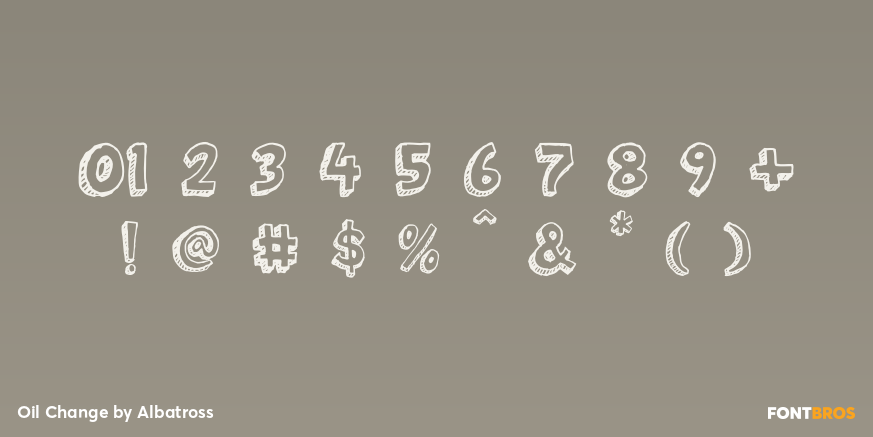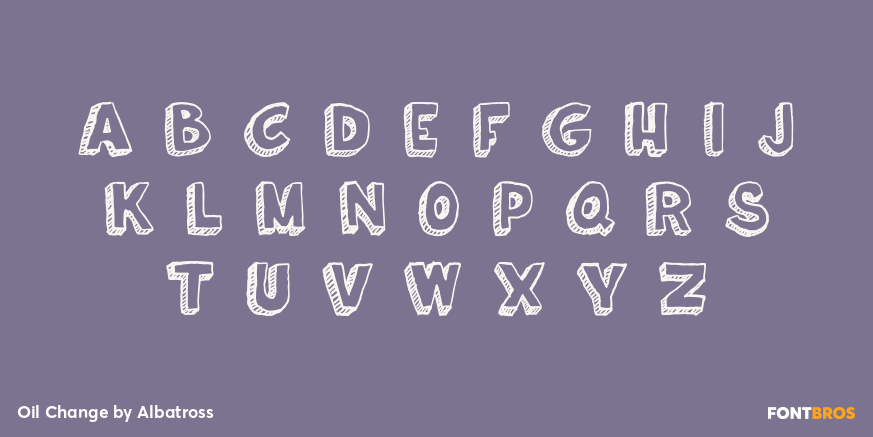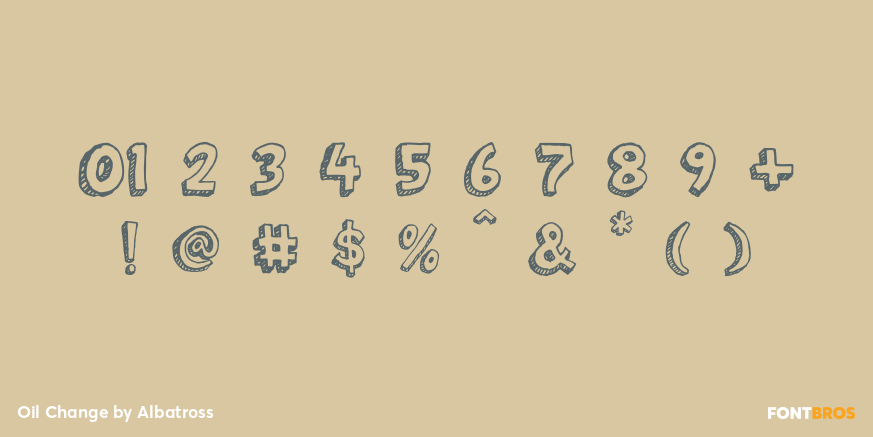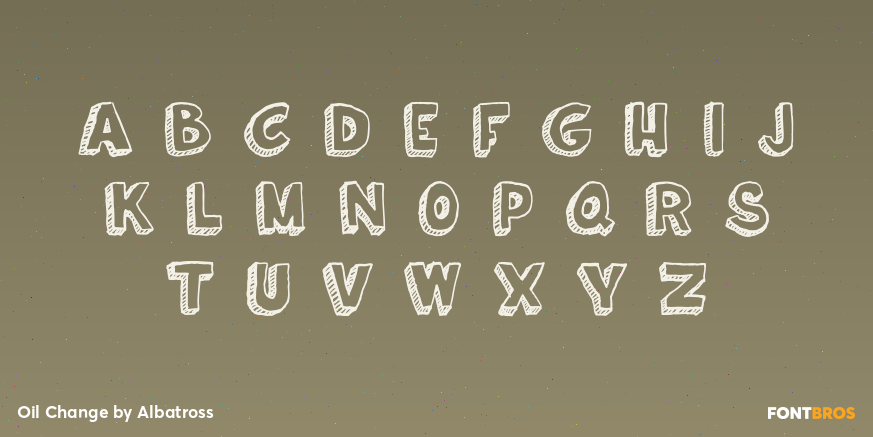
Oil Change
Font Family by Albatross
Oil Change is a fun, hand-drawn 3D display font with tons of character. It’s based on informal letterforms and was inspired by inner-urban found type. With a mixture of readability and playfulness, Oil Change works well at many different sizes as an alternative display sans.